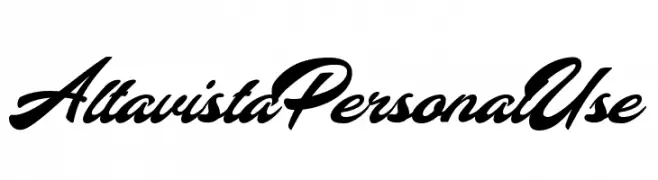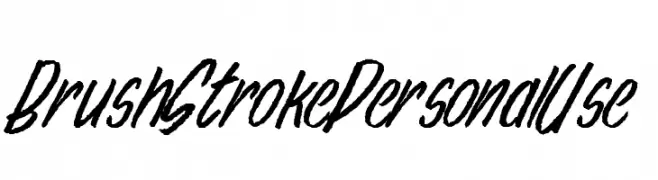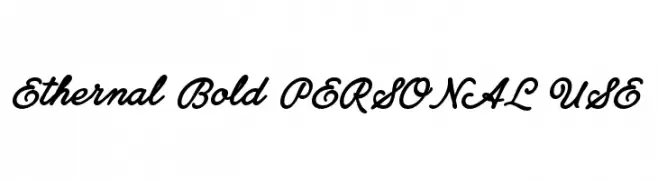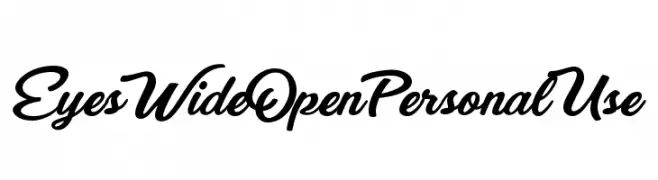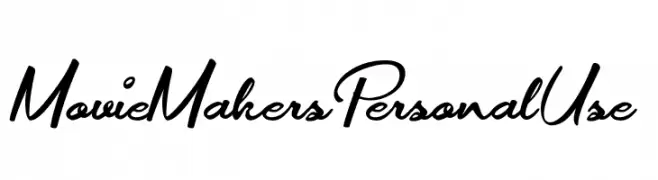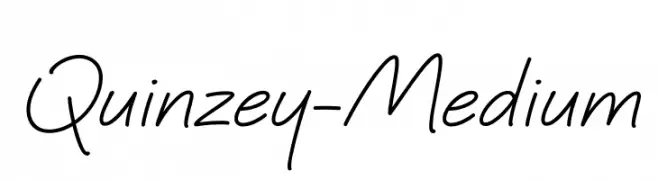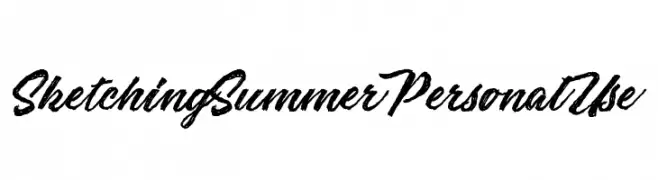
A dynamic and flowing script font with elegant, connected letterforms.
A graceful, cursive font with elegant, flowing strokes.
A dynamic, expressive font with a blend of script and decorative styles.
A playful, bold font with a handwritten, script-like style.
A bold, fluid script font with dynamic strokes and interconnected letters.
A dynamic brush script font with fluid, expressive strokes.
A handwritten, cursive font with smooth, flowing lines and a personal touch.
A bold, cursive font with a flowing, handwritten style.
A bold, elegant script font with interconnected letters and decorative flourishes.